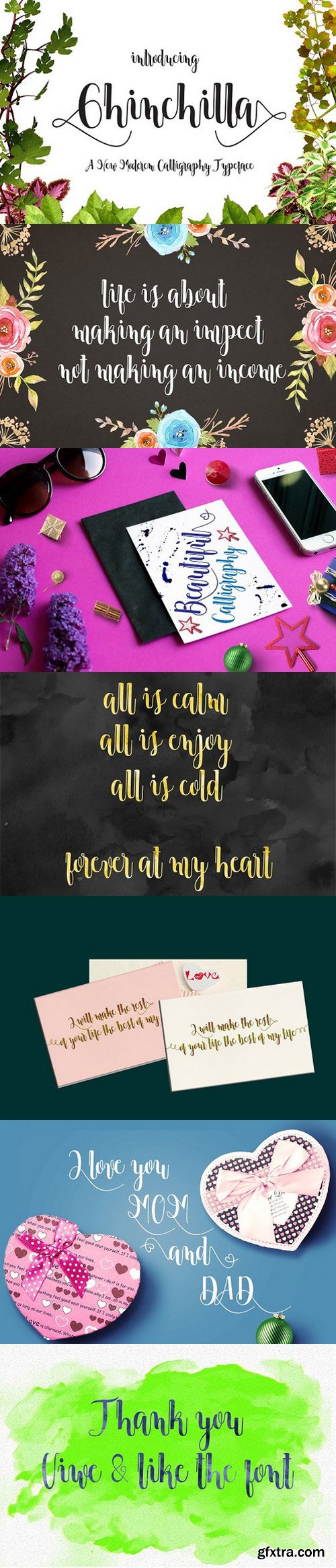
Chinchilla Script Font
Chinchilla is the font style handmade dancing and then live trace to have unique forms of calligraphy, the writing style is very natural.